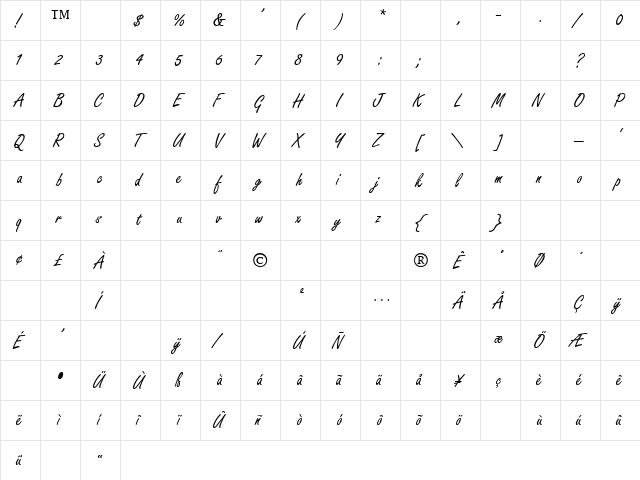
FreestyleScriptThin Regular Font Preview
Design Context for FreestyleScriptThin Typeface
FreestyleScriptThin brings a calligraphic fluidity to the page — its connecting strokes and expressive curves give it an unmistakably human quality. Its slender proportions lend an understated elegance to any composition.
Font Pairing: Combine FreestyleScriptThin with a simple geometric sans for maximum contrast — the tension between flowing curves and clean structure is a classic typographic pairing.
Pro Tip: Pair FreestyleScriptThin with a clean sans-serif for supporting text. The contrast between fluid script and geometric structure creates an elegant typographic hierarchy.